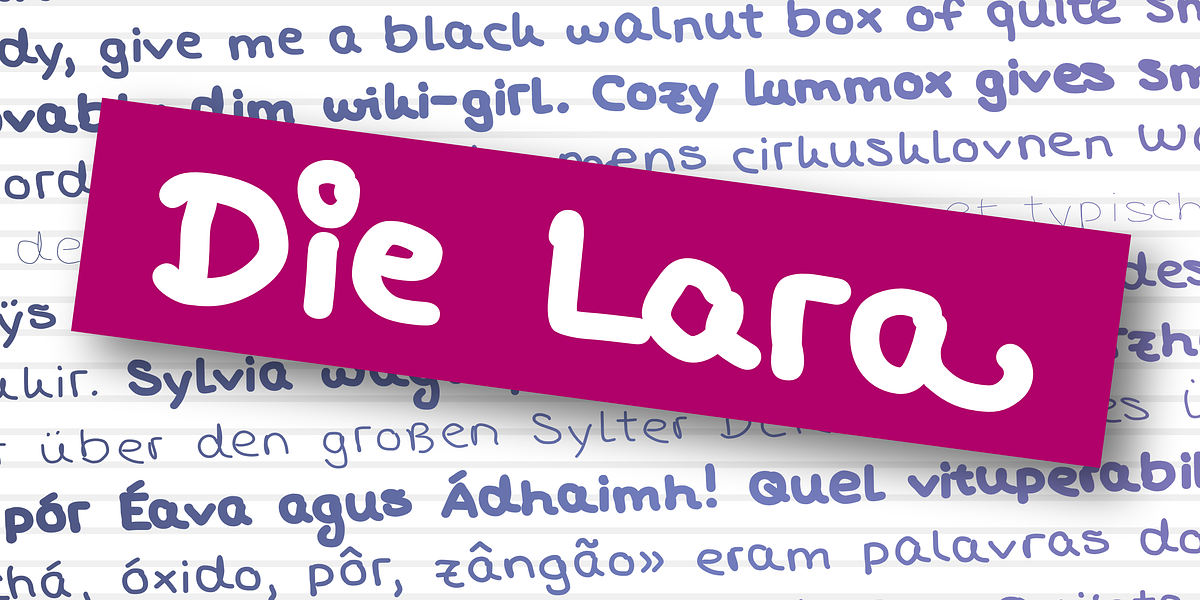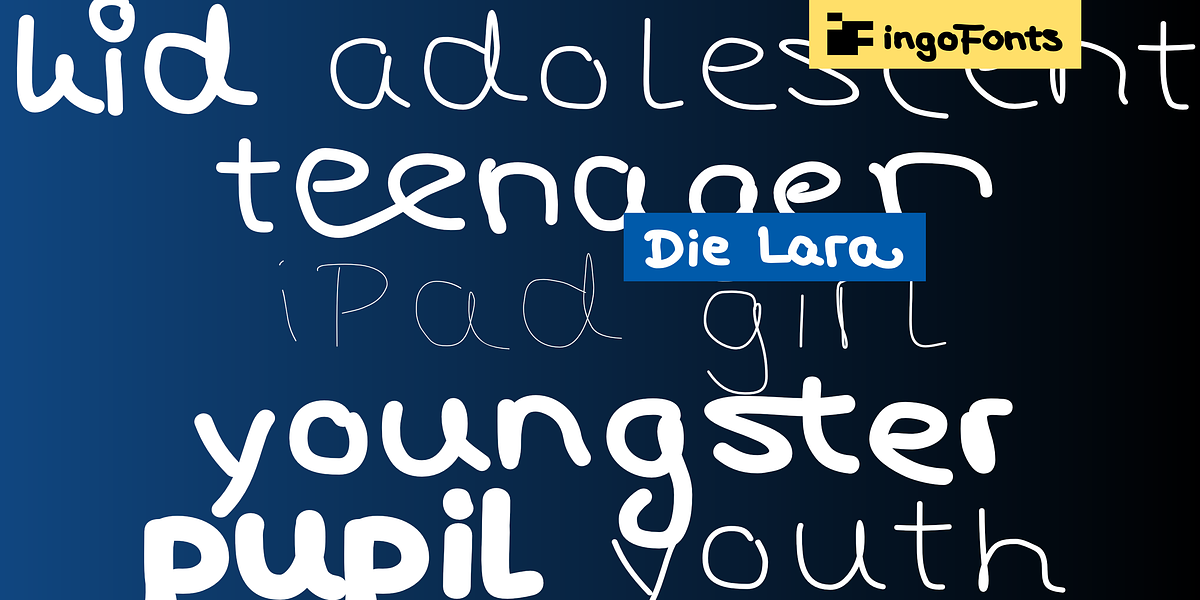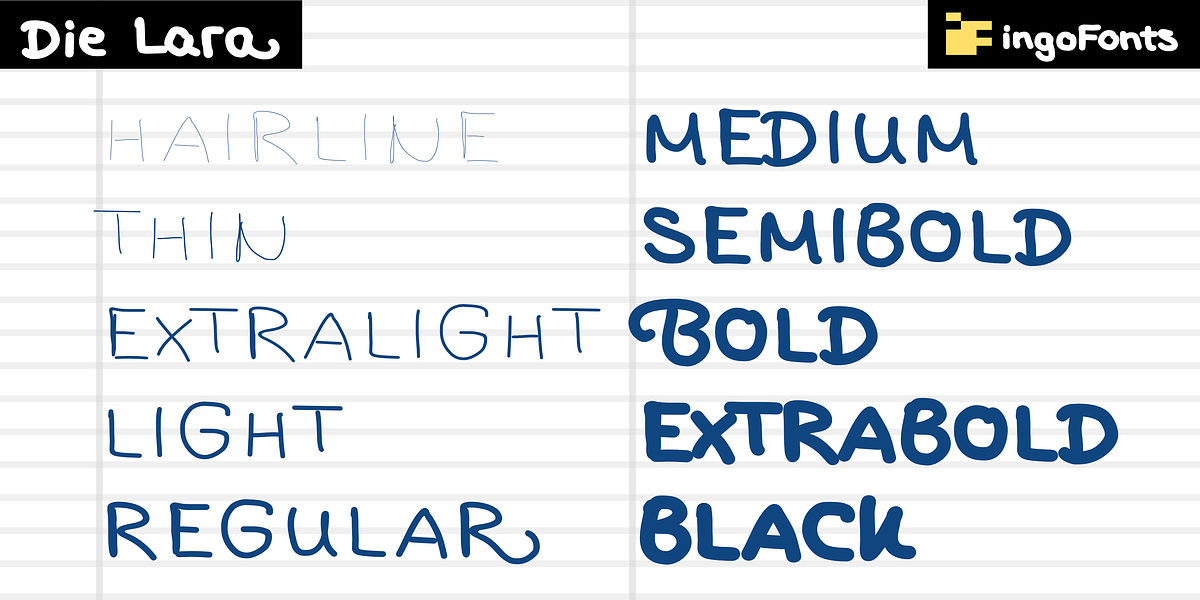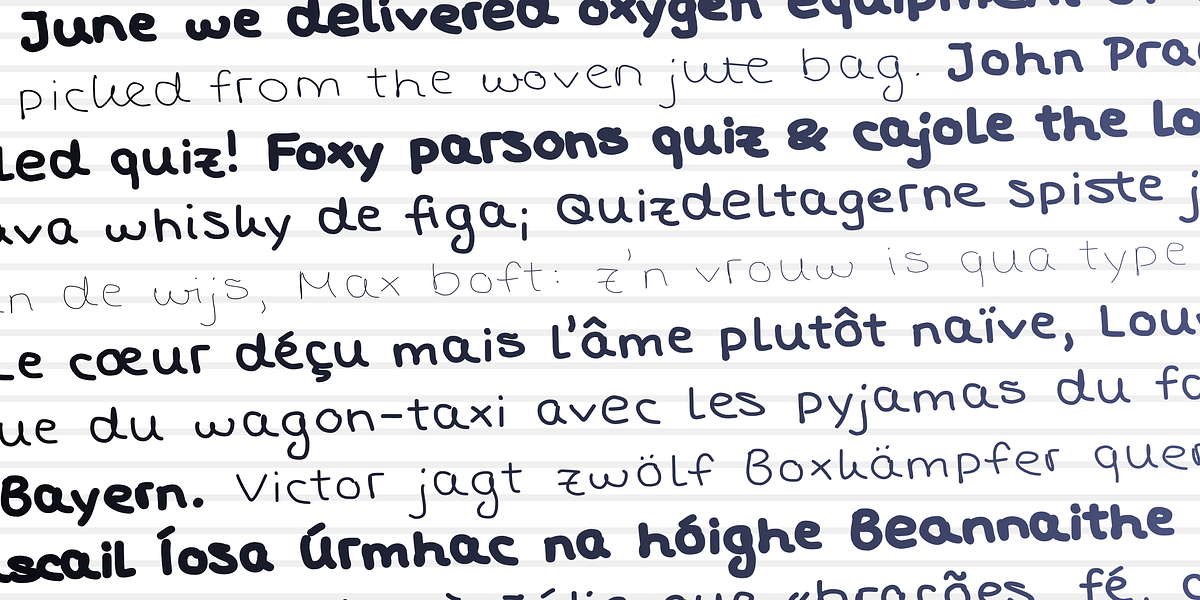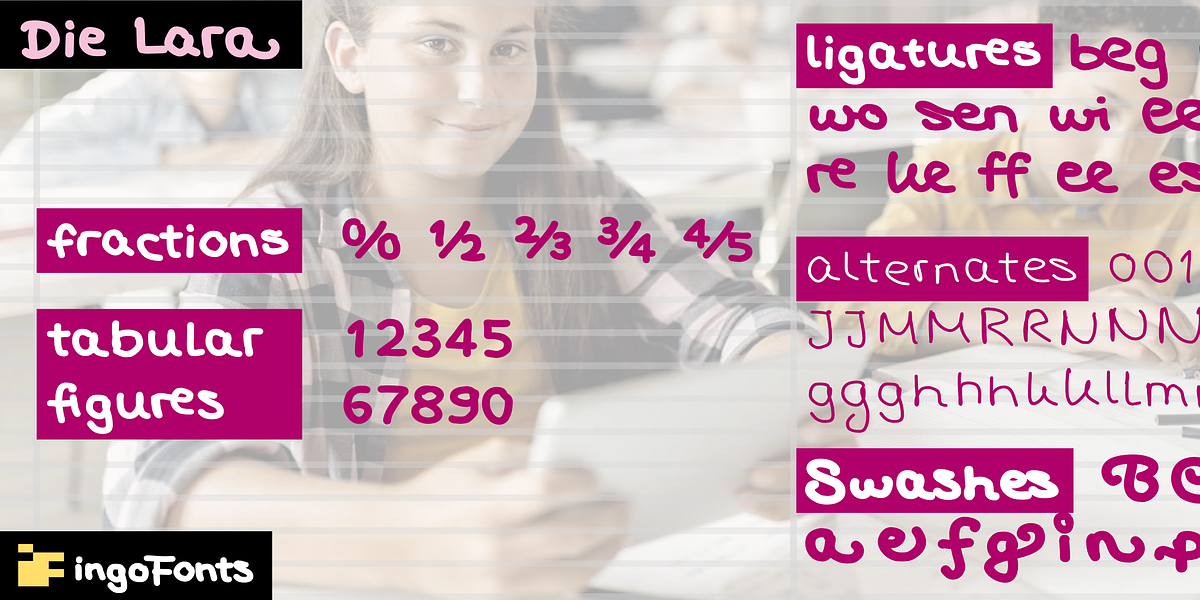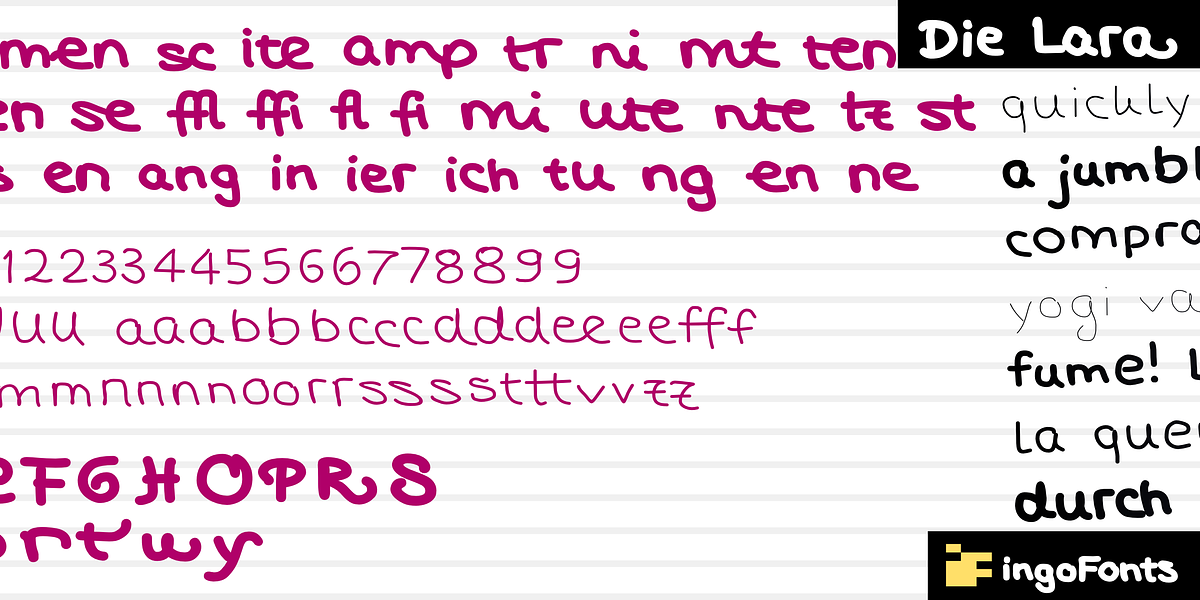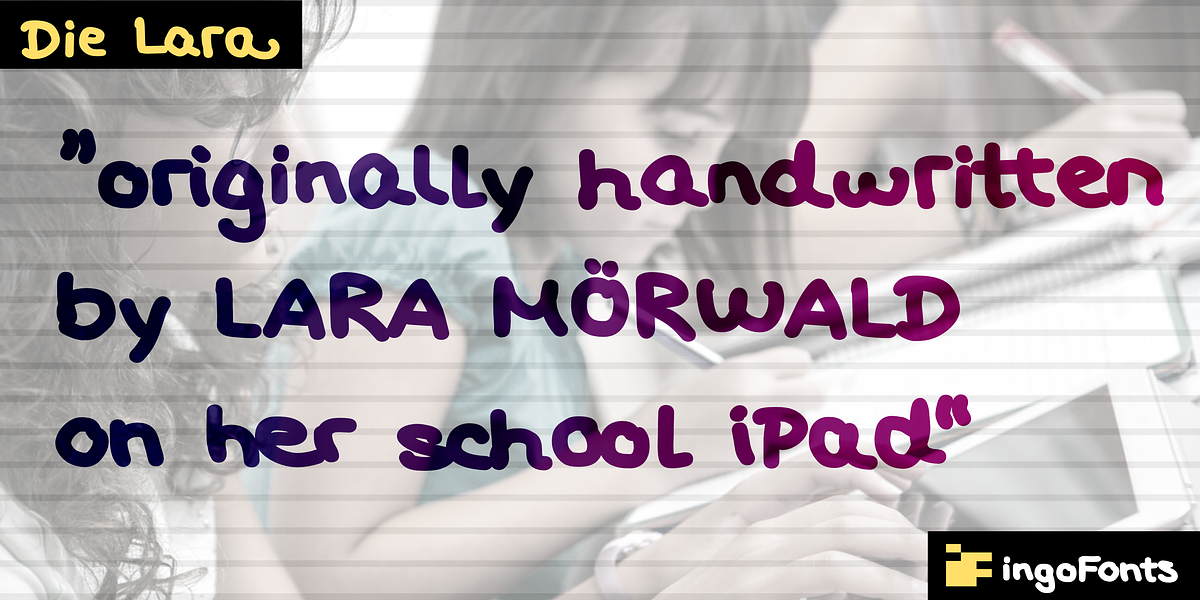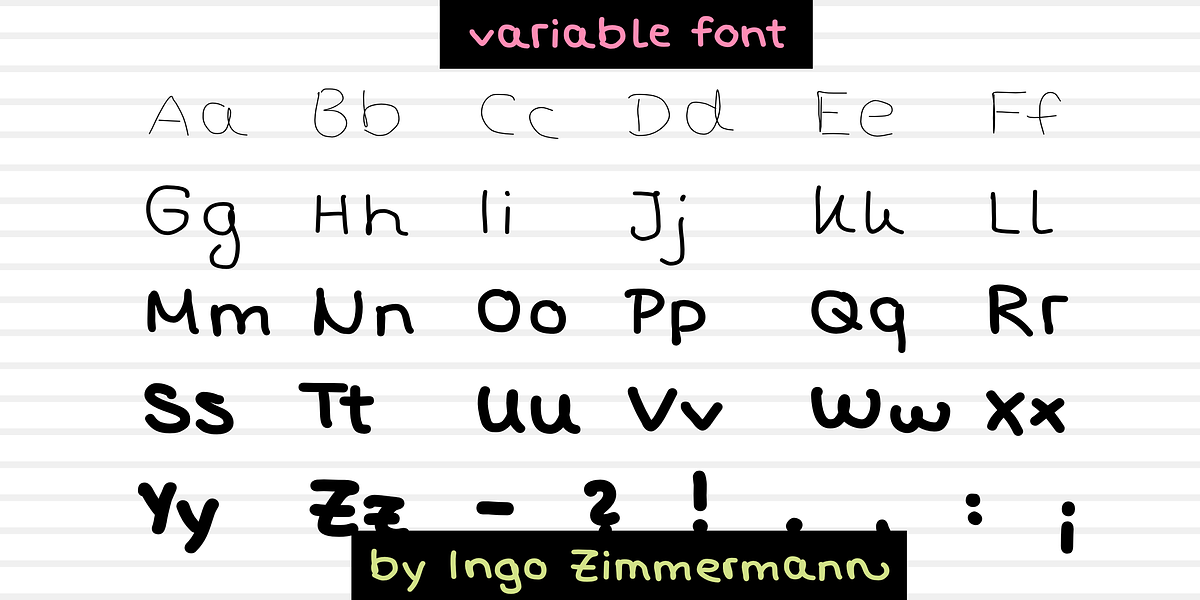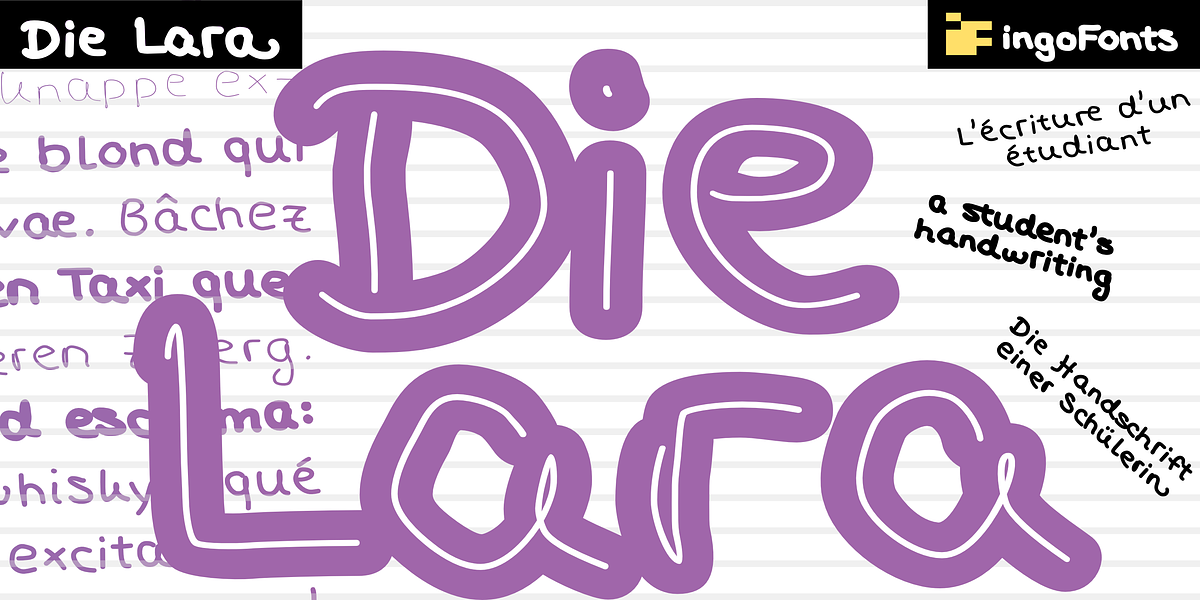
Die Lara
Die Lara is a casual hand script font inspired by the handwriting of Lara Mörwald, a child who drew on an iPad. The font captures the natural unevenness and charm of handwritten letters. It includes multiple weights, from Hairline to Black, allowing for versatility in design. Additionally, Die Lara features alternate character forms and swashes for added personality and stylistic variation.